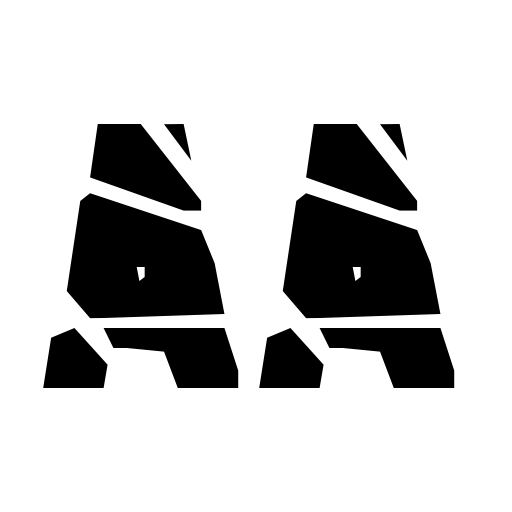
Brad Font is a bold, display sans serif typeface with a shattered, fragmented texture that creates a striking, urban edge. Its heavy weight and condensed proportions make it perfect for impactful headlines and graphic designs that need a modern, rebellious vibe. This font works well for posters, logos, and branding where a strong, disruptive statement is desired.
Brad Font
About Brad Font